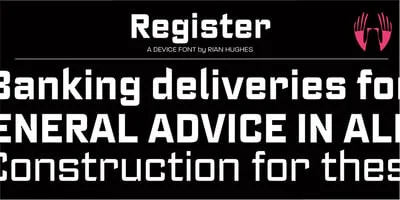
Register Font
Register Font is ideal for official design projects including government documents, legal firm branding, financial institution materials, registration office signage, notary public forms, corporate compliance documents, administrative paperwork, and professional certification materials. This authoritative typeface works perfectly for banking institutions, insurance companies, accounting firms, municipal offices, and projects that require formal documentation and official communication standards.
What makes Register Font exciting is its professional institutional character that perfectly embodies the essence of official authority and administrative precision. The font features clean, systematic letterforms with consistent proportions that reflect the reliability and trustworthiness of formal documentation. Its methodical design elements capture the essence of bureaucratic efficiency and legal accuracy, making it perfect for projects that need to convey credibility, compliance, and institutional authority. The carefully standardized spacing and character relationships ensure maximum clarity in official contexts.
Register Font comes in multiple family variations including light, regular, medium, bold, and condensed styles. Each weight maintains the distinctive official character while offering different levels of administrative presence and documentary authority. The font family includes formal alternates, institutional ligatures, and compliance variations that provide designers with comprehensive options for creating truly professional and regulation-compliant typographic systems.
Whether you're designing government branding, creating legal marketing materials, or developing official documentation systems, Register Font provides the perfect typographic foundation for projects that demand institutional credibility and administrative excellence. This exceptional typeface transforms standard text into compelling expressions of professional authority and regulatory compliance. Download this remarkable font today and establish your design projects with typography that commands respect and communicates with the clarity and precision required for official correspondence and institutional communications.